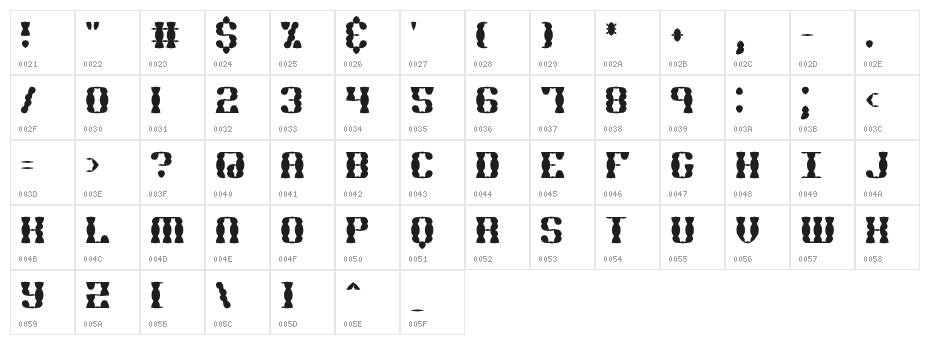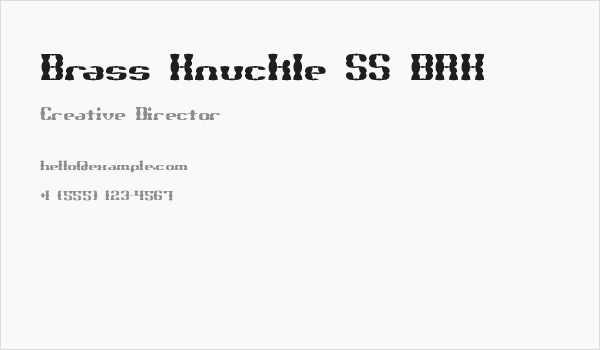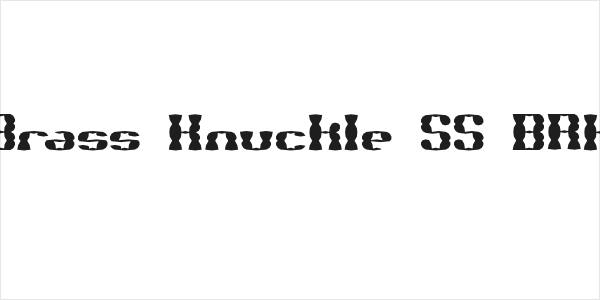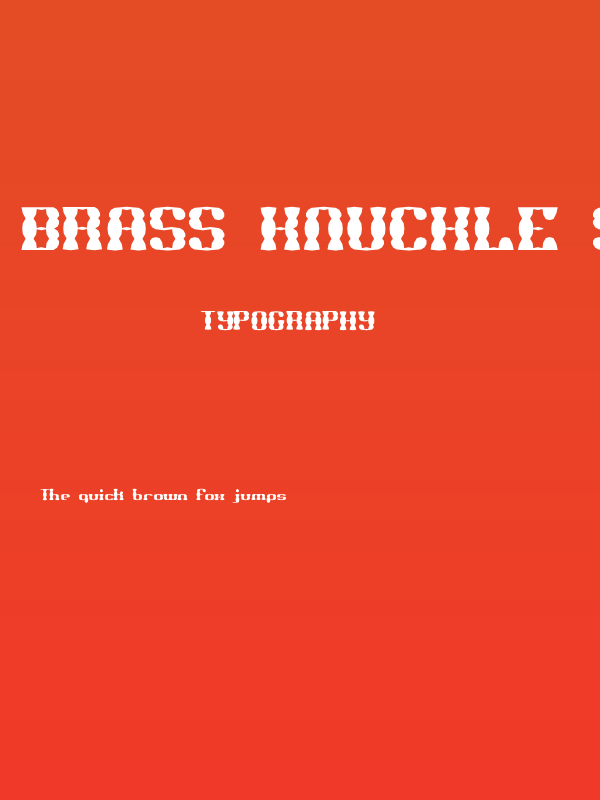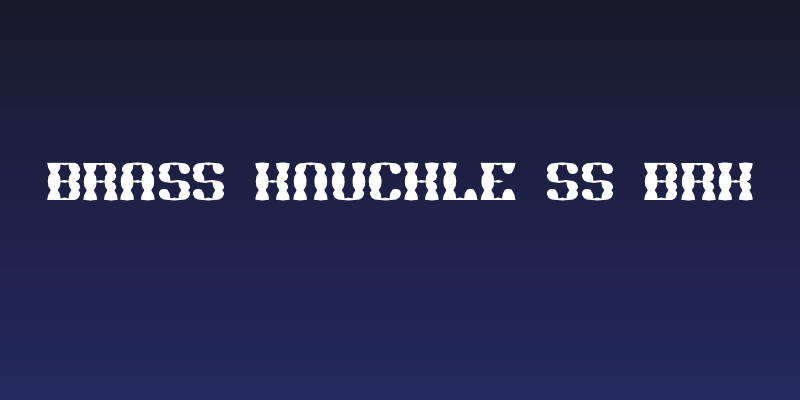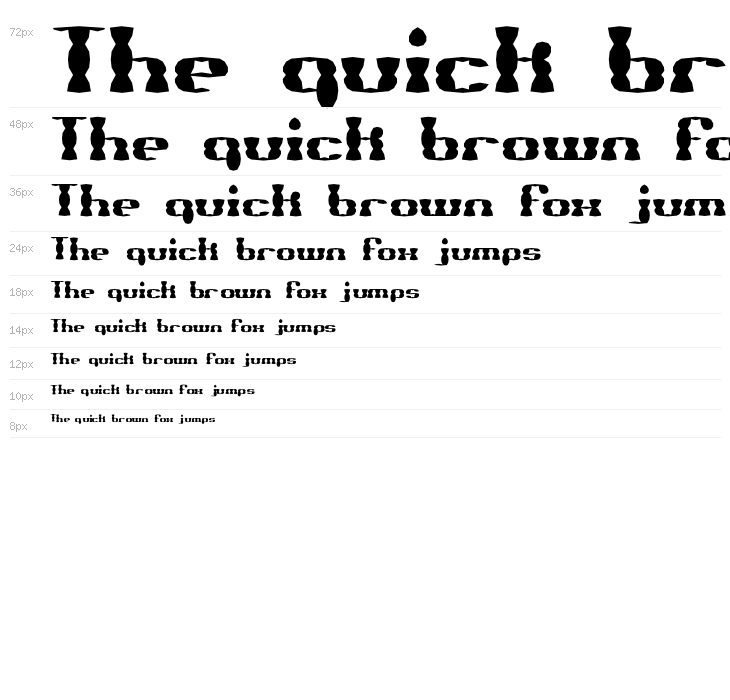
Brass Knuckle SS BRK Font
Brass Knuckle SS BRK Description
This font features a bold and striking design with a unique, heavy appearance. The characters are crafted with a distinct, blocky style that incorporates rounded and angular elements, creating a visually impactful look. The uppercase and lowercase letters maintain a consistent weight, contributing to a cohesive aesthetic. The numbers and special characters follow the same design principles, ensuring uniformity across all glyphs. This font's boldness and distinctive style make it ideal for projects that require a strong visual presence.
| Proposed Projects | Ideal for posters, album covers, branding, and any project needing a bold statement. |